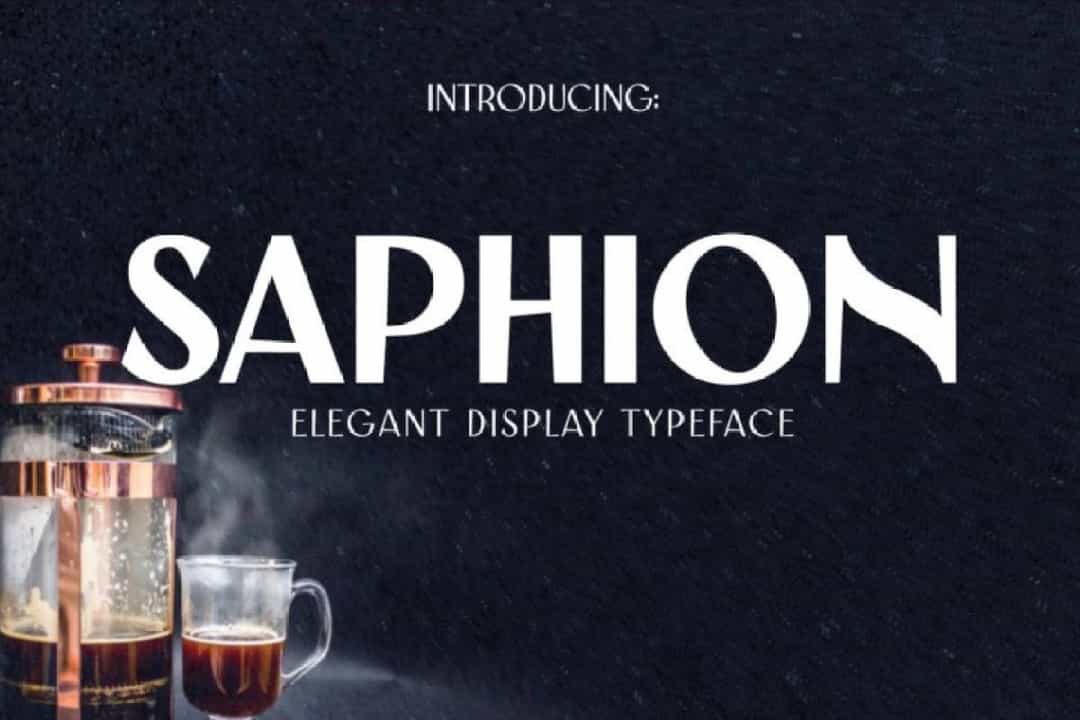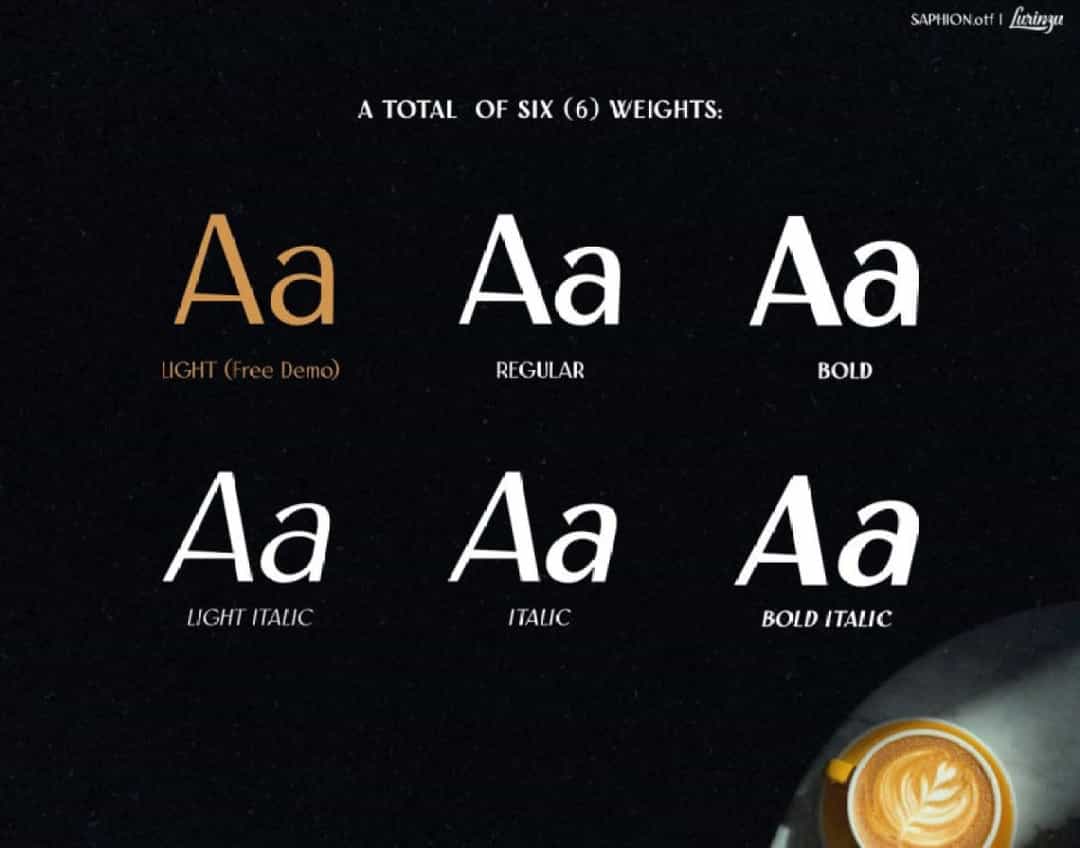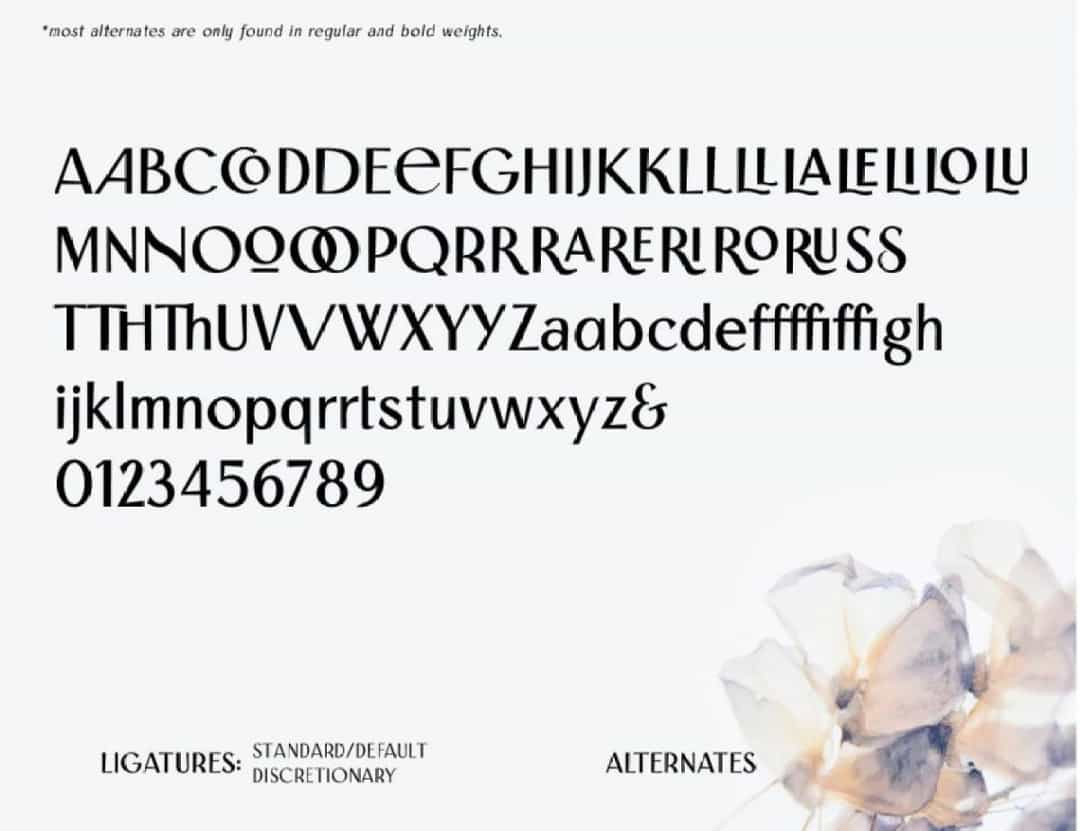
Saphion is an elegant yet contemporary San Serif font that pays a strong tribute to classic typography. Perfect for branding, logos, fashion, weddings and all related designs. This typeface can serve both as display fonts and easily-readable fonts for heavy type projects such as blogs or magazines.